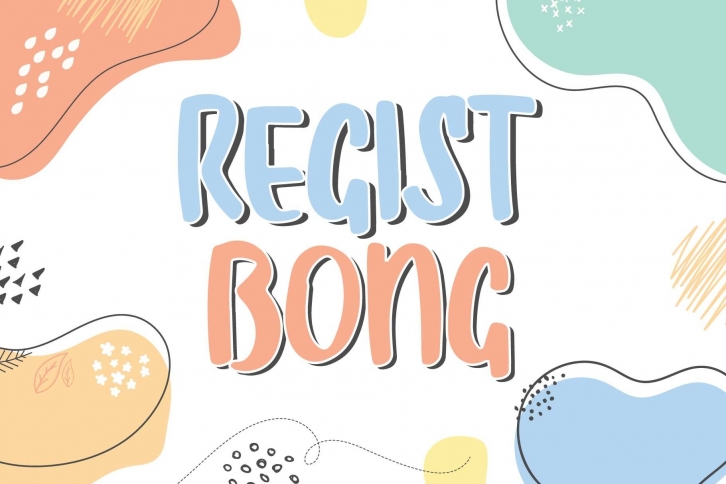
Regist Bong - Playfull Font Download
Regist Bong is a beautiful font that was designed by Nirmana Visual. It's a great choice for designers and creatives who need such a font. It was released on January 3, 2021 and the file size is 12.40 MB. Regist Bong may give a more youthful, expressive and casual look to your project. It is a very beautiful, refined, elegant, and high-quality font.